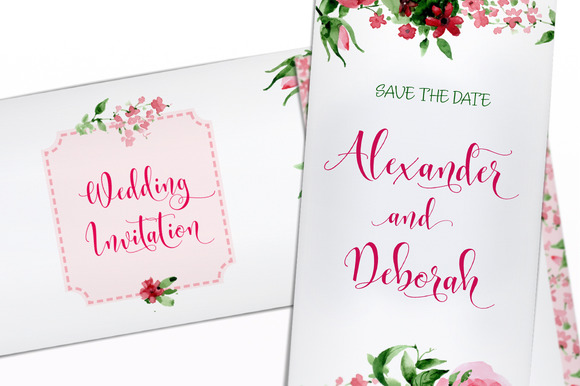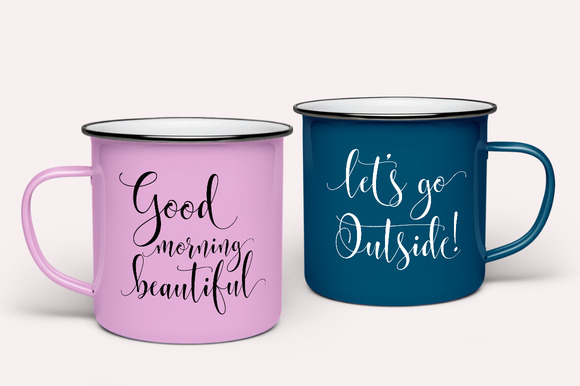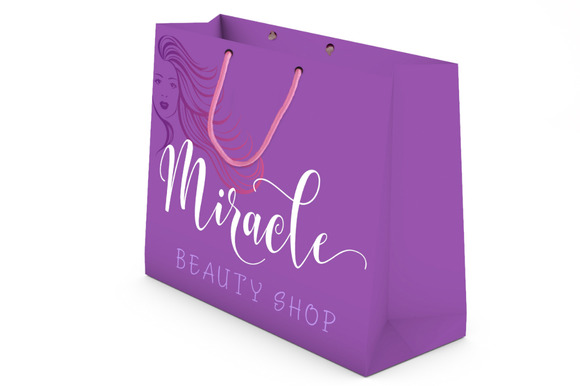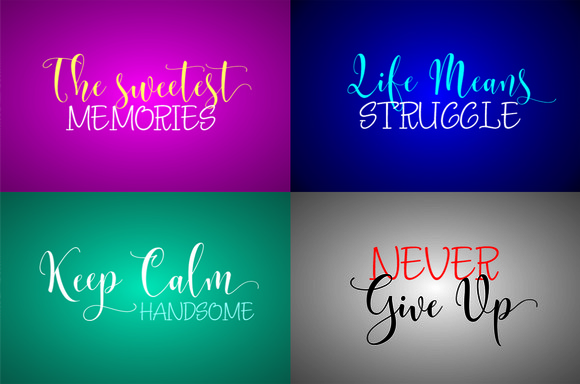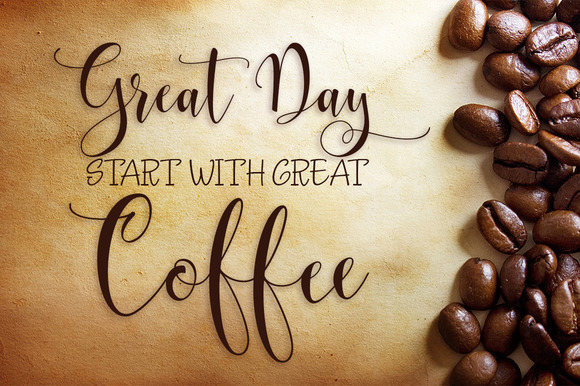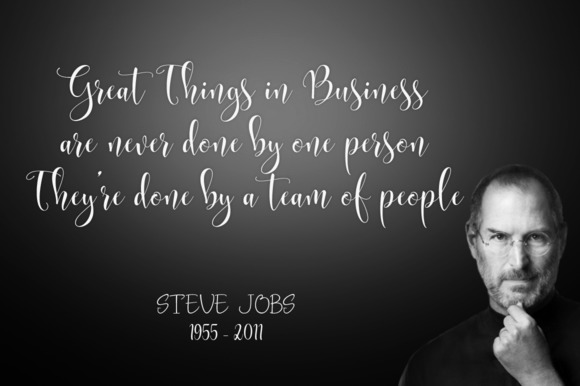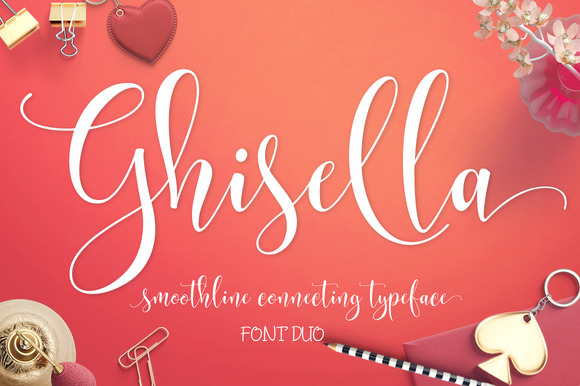
Ghisella Font: Elevate Your Designs with Elegant Interconnected Letters
Are you a designer or crafter looking for a unique and beautiful font to elevate your creations? Look no further than Ghisella Font, a stunning interconnected font that is sure to impress. With its smooth and elegant letters, Ghisella is perfect for creating a wide range of designs, from wedding invitations and birthday cards to signs and decorative items.
The Beauty of Ghisella Font
Ghisella Font is a masterclass in font design, with beautifully welded letters that flow seamlessly together. The font’s interconnected design creates a sense of continuity and harmony, making it perfect for designs where you want to convey a sense of elegance and sophistication. Whether you’re creating a formal wedding invitation or a playful birthday card, Ghisella Font is sure to add a touch of class and refinement to your design.
Characteristics of Ghisella Font
So what makes Ghisella Font so special? Here are just a few of its key characteristics:
• Interconnected letters: Ghisella Font features beautifully welded letters that flow together seamlessly, creating a sense of continuity and harmony.
• Smooth and elegant: The font’s smooth and elegant design makes it perfect for creating formal and informal designs, from wedding invitations to birthday cards.
• Versatile: Ghisella Font can be used to create a wide range of designs, from signs and decorative items to cards and invitations.
Uses for Ghisella Font
So what can you create with Ghisella Font? The possibilities are endless! Here are just a few ideas to get you started:
• Wedding invitations: Ghisella Font is perfect for creating beautiful and elegant wedding invitations that set the tone for a special day.
• Birthday cards: Add a touch of class and refinement to your birthday cards with Ghisella Font’s smooth and elegant design.
• Signs: Use Ghisella Font to create beautiful signs for special events, parties, or everyday use.
• Decorative items: Ghisella Font can be used to create a wide range of decorative items, from wall art to gift tags.
Tips for Using Ghisella Font
Here are a few tips for getting the most out of Ghisella Font:
• Experiment with different sizes: Ghisella Font looks great in a wide range of sizes, from small and delicate to large and bold.
• Play with color: Ghisella Font can be used with a wide range of colors, from classic black and white to bright and bold hues.
• Mix and match: Try pairing Ghisella Font with other fonts and design elements to create unique and interesting combinations.
Ghisella Font is a beautiful and versatile font that is sure to elevate your designs and add a touch of elegance and sophistication. With its smooth and elegant letters, interconnected design, and wide range of uses, Ghisella Font is perfect for designers and crafters of all levels. So why wait? Download Ghisella Font today and start creating stunning designs that will leave a lasting impression!